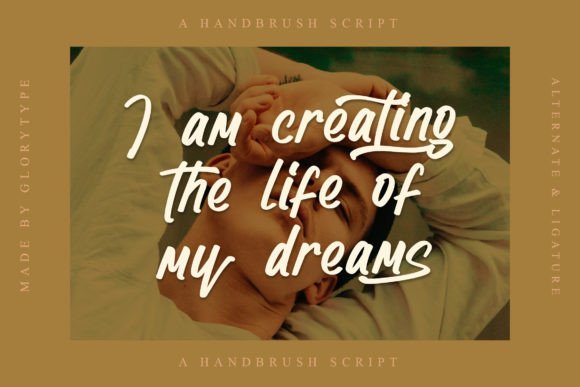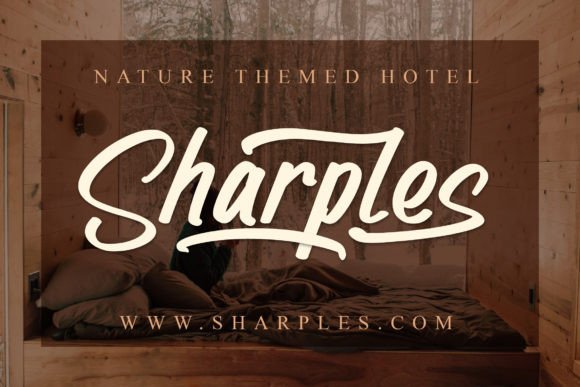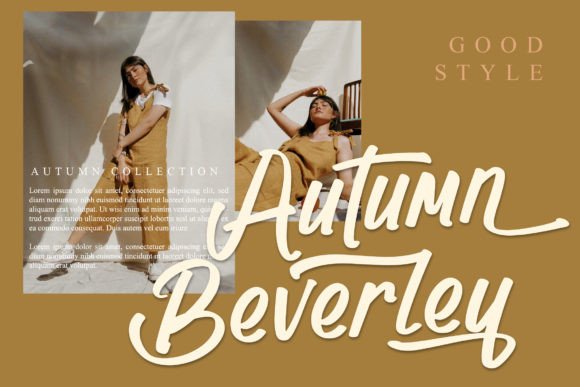
Introduction to Hungtrey Beatmora Font Font
Fonts play a crucial role in design, and the Hungtrey Beatmora Font font is a typeface that brings both character and versatility to any project. Whether you’re working on a branding project, a website, or a print design, the Hungtrey Beatmora Font font offers a unique style that can elevate your work.
| 📌 Font Name | Hungtrey Beatmora Font |
| 👤 Author | Glorytype Studio |
Hungtrey Beatmora is a handwritten brush script designed to charm your projects.
From quotes and packaging to whatever else, this font will send the message you desire .
Key Features of Hungtrey Beatmora Font Font
Why Choose Hungtrey Beatmora Font Font?
The Hungtrey Beatmora Font font is more than just a typeface – it’s a design tool that helps you communicate your message with style and clarity. Its unique character set and versatile design make it suitable for a wide range of applications, from elegant invitations to bold headlines.
With its carefully crafted letterforms and balanced proportions, the Hungtrey Beatmora Font font ensures readability and visual appeal across all mediums.
What makes Hungtrey Beatmora Font font special?
The Hungtrey Beatmora Font font stands out with its unique design, exceptional readability, and versatility across various design applications.